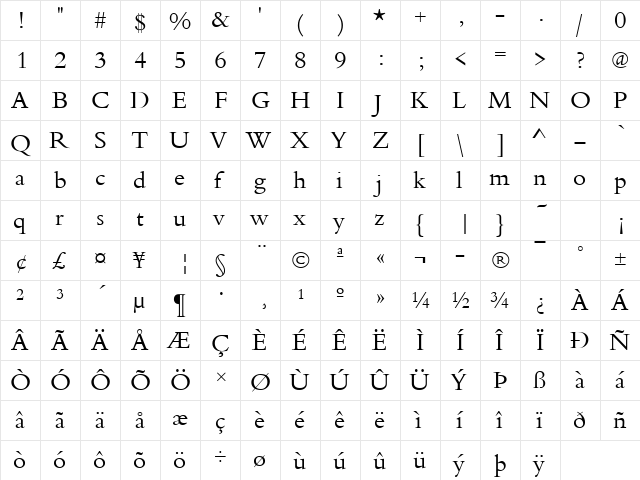
URWBeruiniT Regular
Design Context for URWBeruiniT Typeface
URWBeruiniT offers clean, dependable letterforms without strong stylistic allegiance, making it a practical choice for designers who need flexibility.